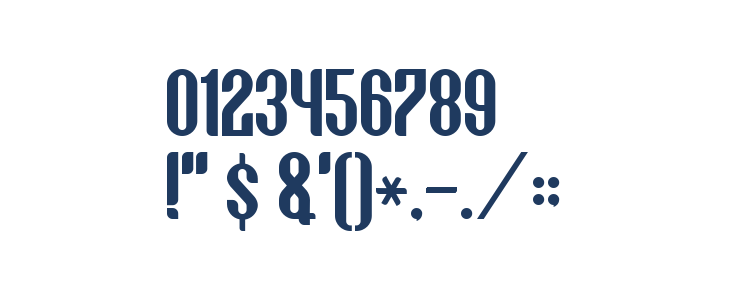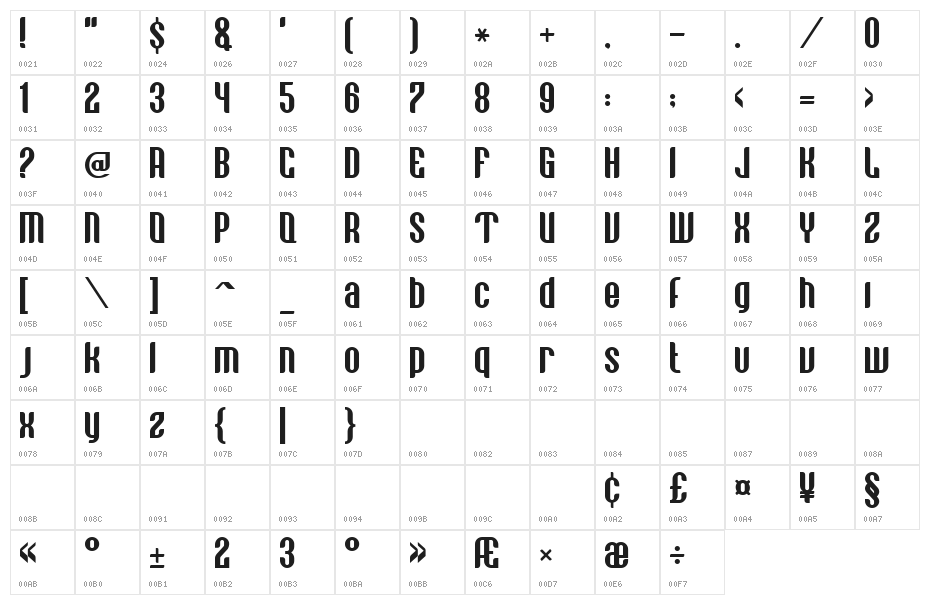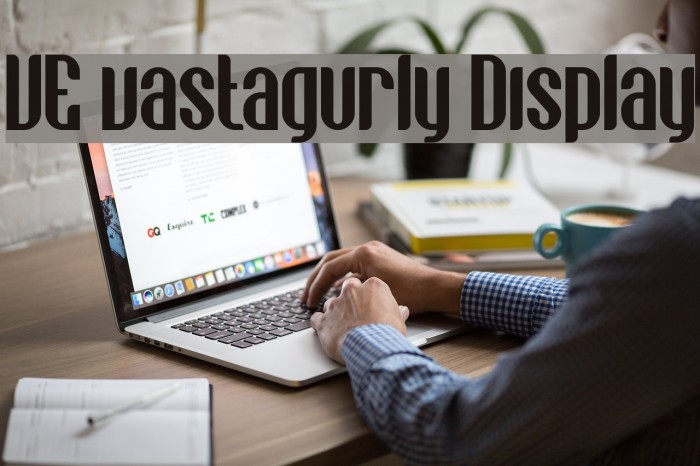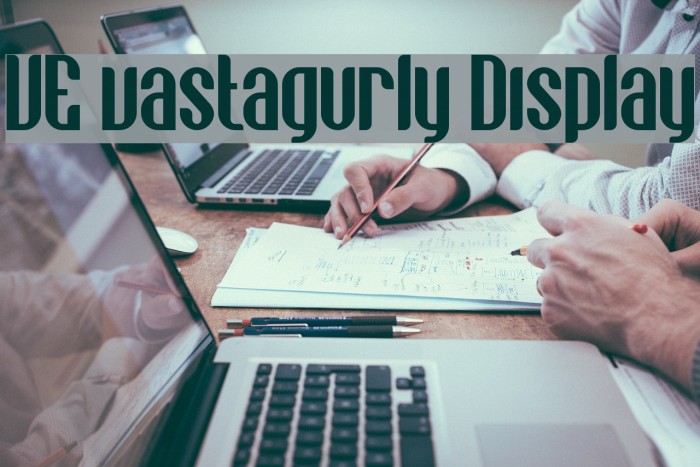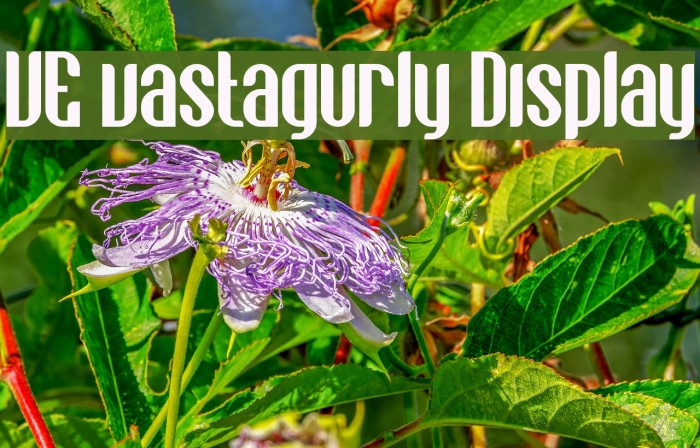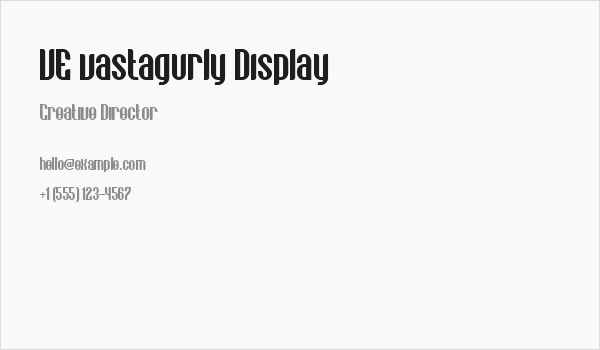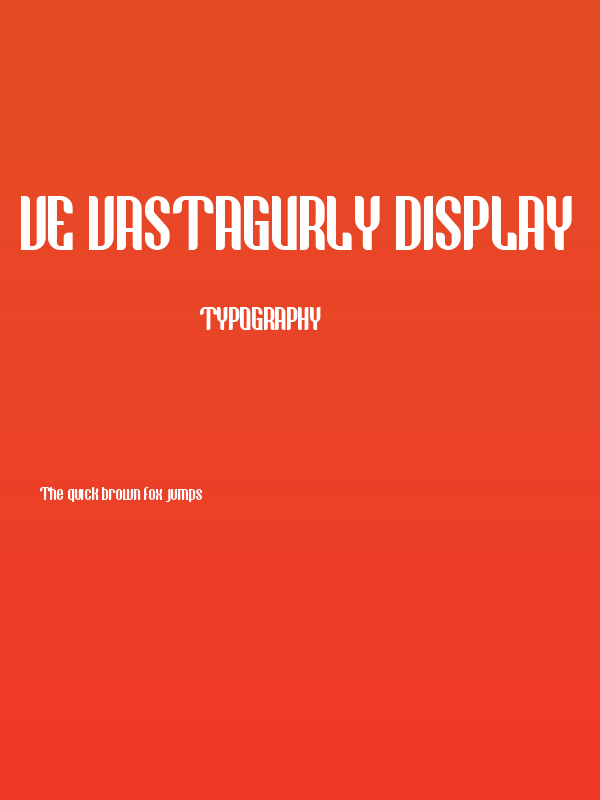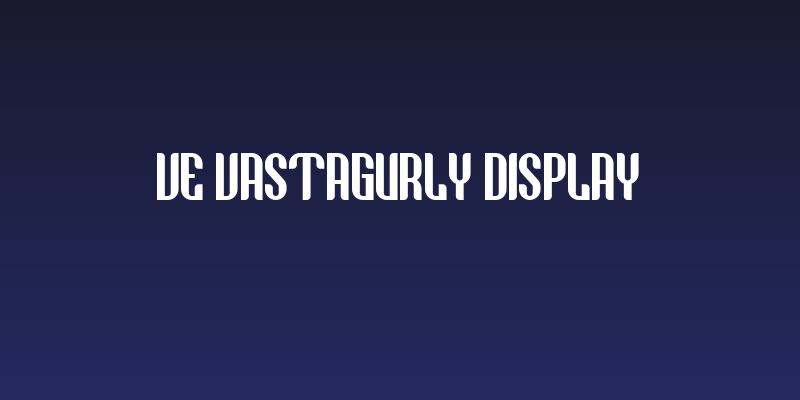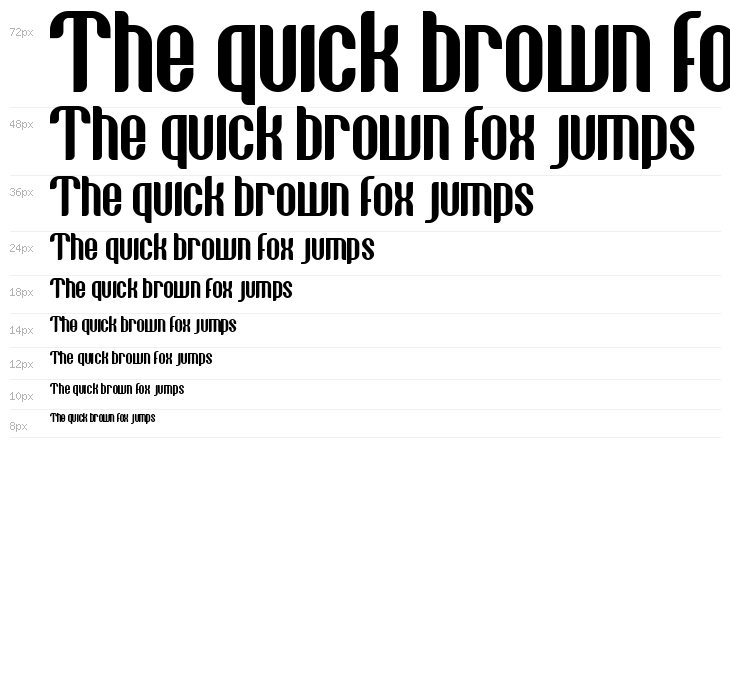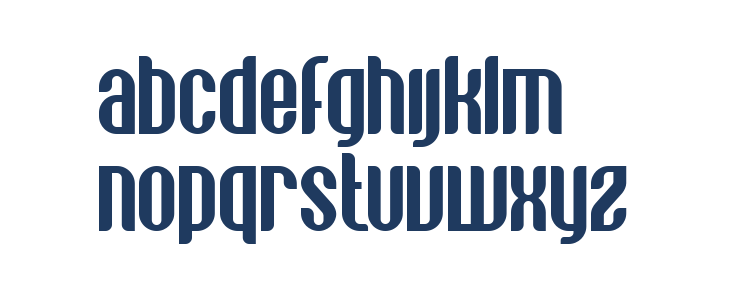
VE vastagurly Display Font
VE vastagurly Display Description
This font features a bold and striking design with a modern flair. The characters are tall and narrow, with a unique curvature that adds a playful yet sophisticated touch. The uppercase letters are particularly elongated, giving them a commanding presence. The lowercase letters maintain the same stylistic elements, ensuring consistency throughout. Numbers and special characters are designed with the same attention to detail, making them stand out. The overall look is both decorative and functional, suitable for making a strong visual impact.
Proposed ProjectsIdeal for branding, posters, headlines, and any project requiring a strong visual impact.